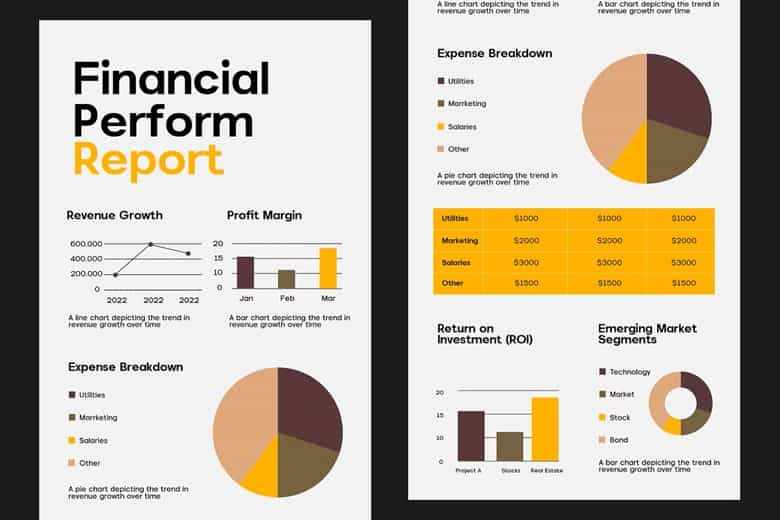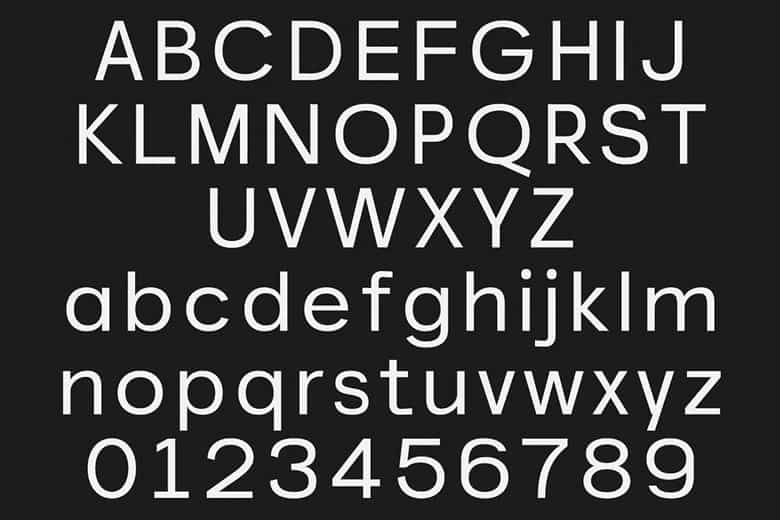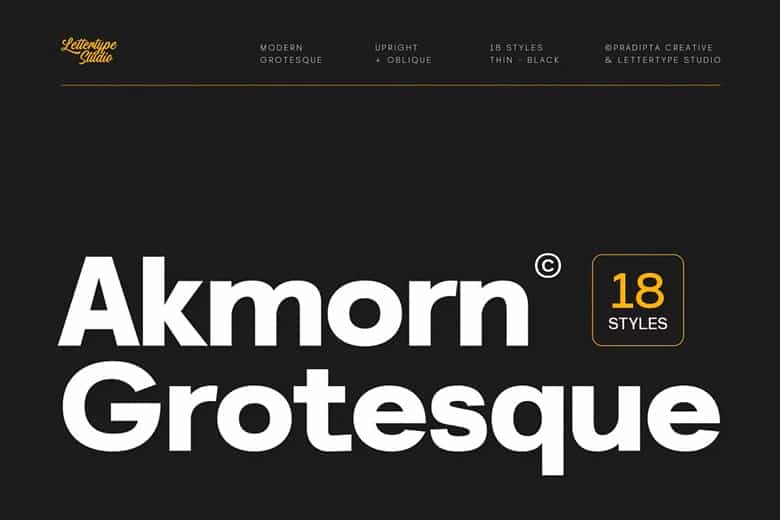
Akmorn is a new grotesque sans serif font in a modern style that is versatile and accurate. Constructed with clean geometry and balanced proportions, it offers 18 carefully designed weights, each with meticulous finesse — ranging between the whisper Thin and the revelatory Black and each accompanied by an oblique to render opulent typographic union. It is highly versatile and can be used in corporate as well as creative work with its neutral form but sophisticated charm.